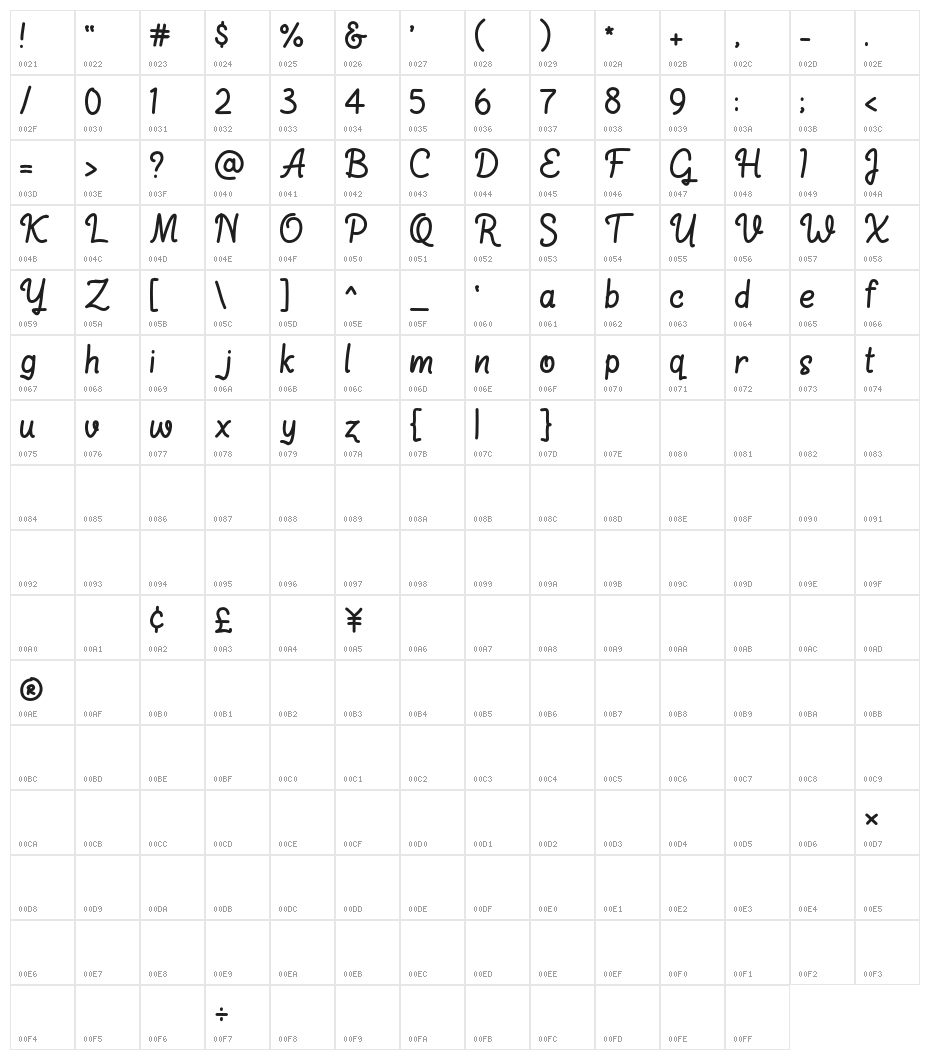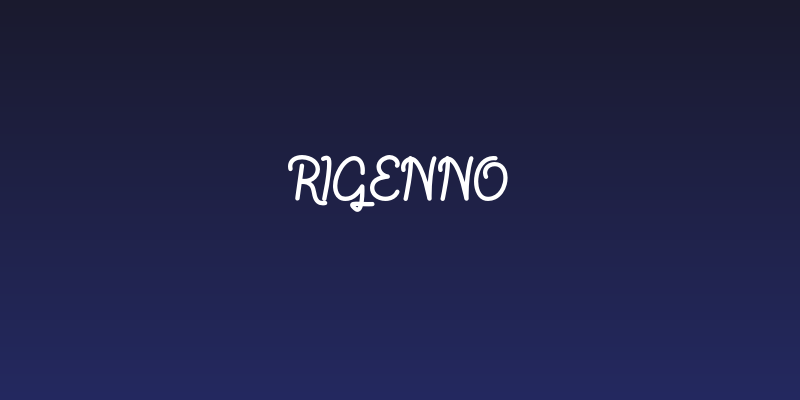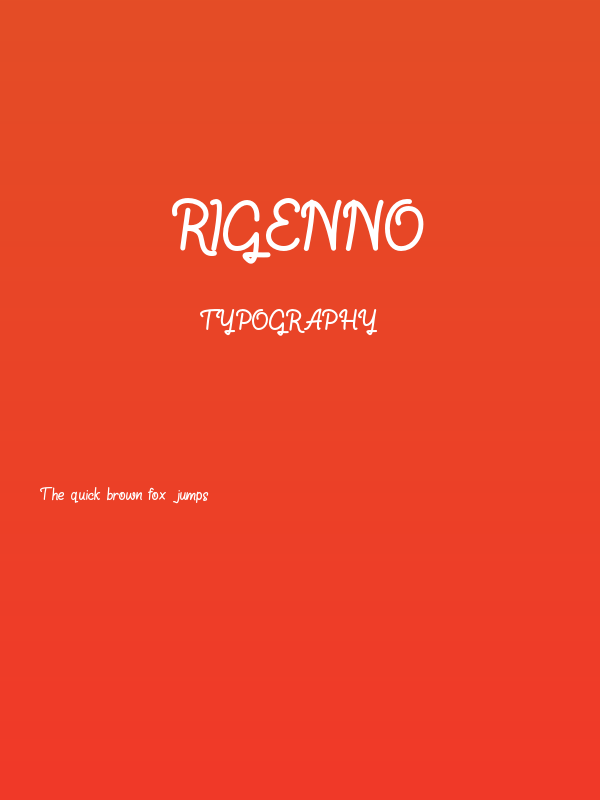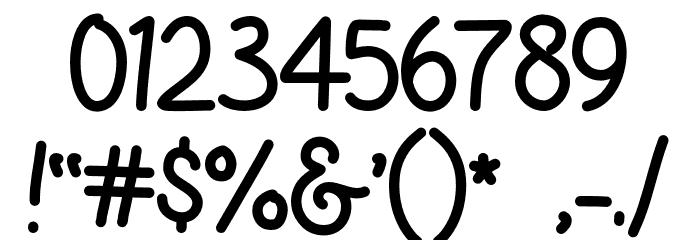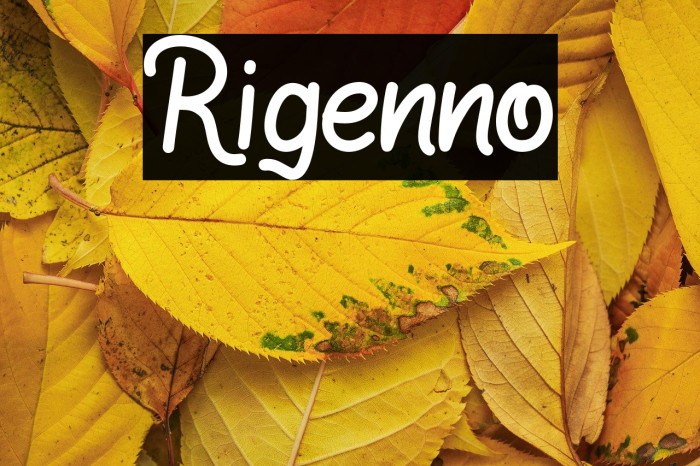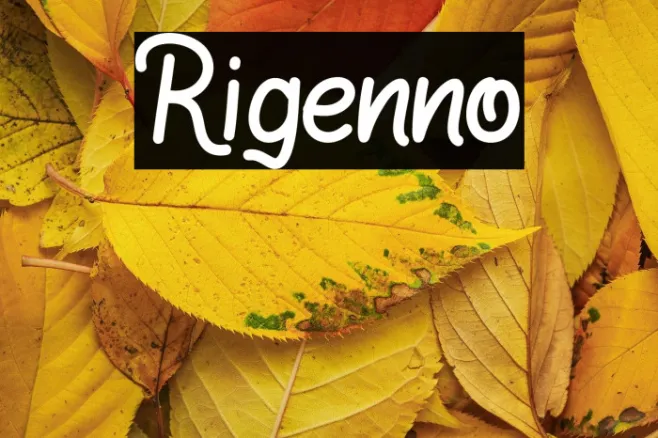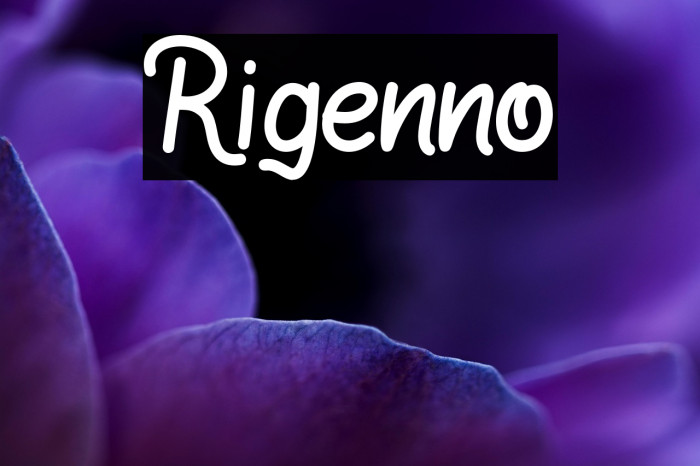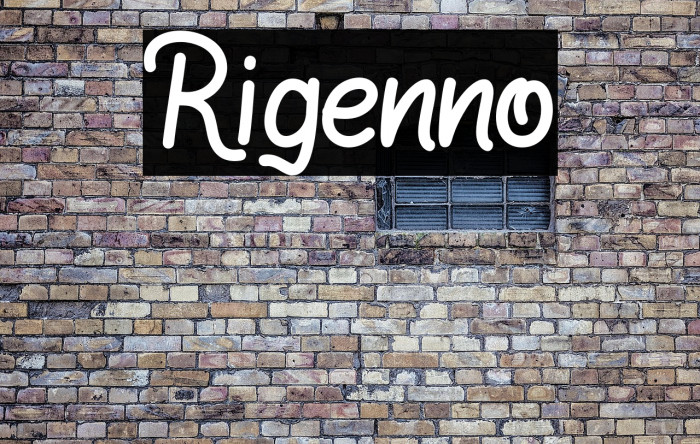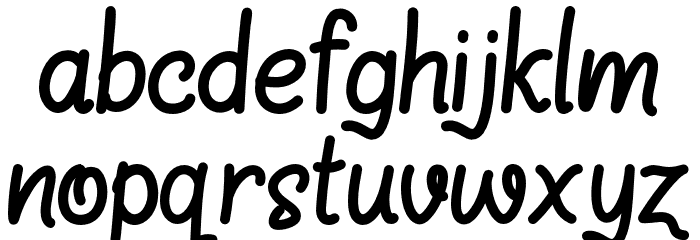
Rigenno Font
Rigenno Description
This font features a playful and dynamic script style with a handwritten feel. The characters are fluid and connected, giving it a casual yet elegant appearance. The uppercase letters are slightly more formal, while the lowercase letters maintain a consistent flow. The numerals are clear and legible, matching the overall style of the alphabet. Special characters are designed to complement the script, adding versatility for various uses. The font's rounded edges and smooth curves contribute to its friendly and approachable look, making it suitable for a wide range of creative projects.
| Proposed Projects | Ideal for greeting cards, invitations, logos, and branding materials that require a personal touch. |